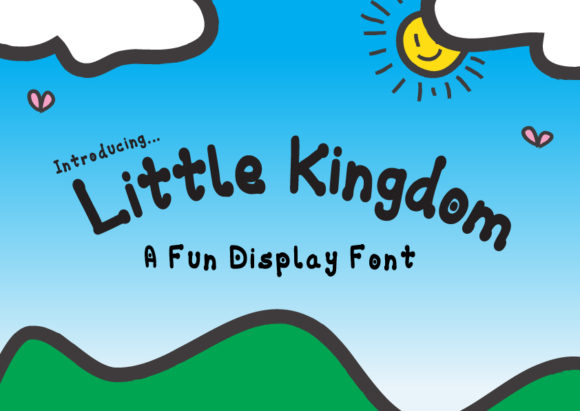
Little Kingdom Font
Behold the captivating Little Kingdom Font, a vibrant and playful creation from GraphicsBam Fonts that will infuse your designs with an enchanting aura. Inspired by the boundless imagination of children, this whimsical display font exudes a sense of wonder and joy, making it the perfect choice for projects that seek to capture the hearts of young and old alike.
Whether you're crafting captivating social media posts, designing eye-catching logos, or creating whimsical invitations, Little Kingdom Font will add a touch of magic to your work. Its playful characters, reminiscent of childhood dreams and fairy tales, will transport your audience to a world of imagination and possibility.
With its bold and expressive letterforms, Little Kingdom Font commands attention, making your messages impossible to ignore. Its unique and eye-catching design will ensure that your creations stand out from the crowd, leaving a lasting impression on viewers.
Immerse yourself in the enchanting world of Little Kingdom Font and let your creativity soar. Its versatility knows no bounds, allowing you to effortlessly weave it into a multitude of projects, from cheerful greeting cards to captivating posters. Capture the essence of childhood, evoke a sense of wonder, and ignite the imagination with every design you create.